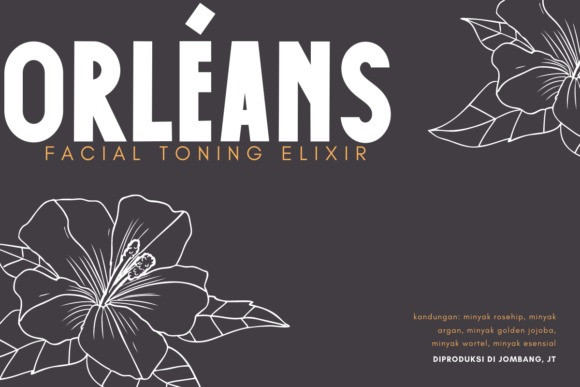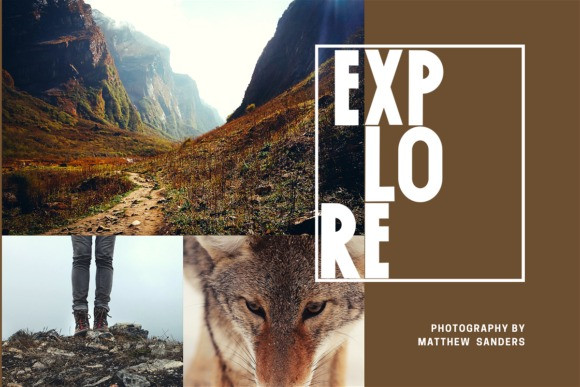
Caffe Bold Display Font has a timeless structure where you can create your modern-elegant or classic design alternatives. It’s designed and shared by deedeetype. This typeface is a simple bold sans serif font. It can easily be matched to an incredibly large set of projects, so add it to your creative ideas and notice how it makes them stand out!
Caffe Bold